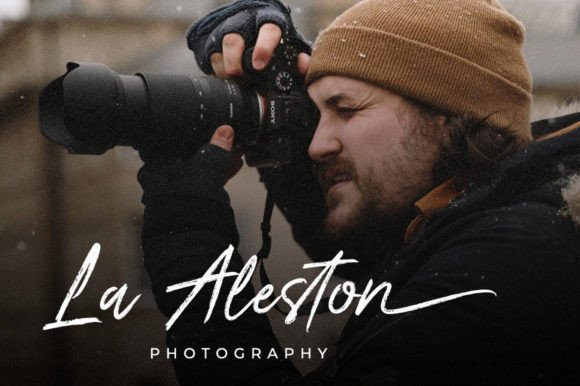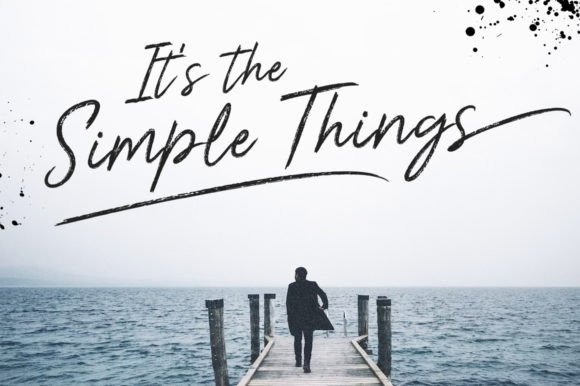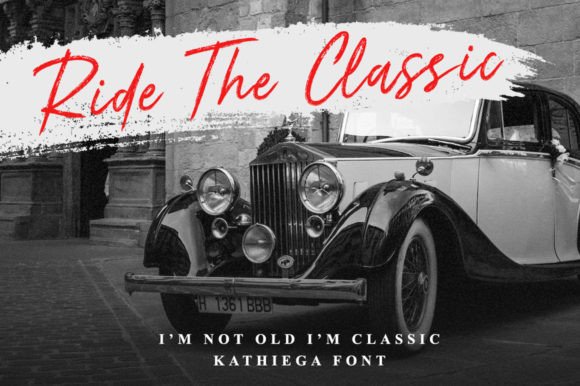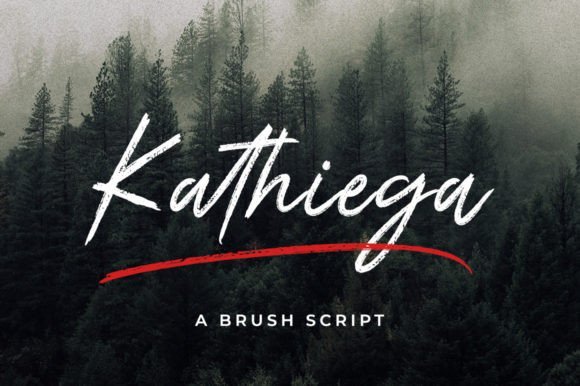
Introduction to Kathiega Font
Kathiega is a handwritten brush script written in a relaxed and natural way.
The letters were created with a brush on paper and then scanned and carefully drawn into a vector format This typeface is ideal for use in any professional project, such as blog titles, posters, wedding elements, t-shirts, clothing, book covers, business cards, greeting cards, branding, merchandise, etc.
Kathiega Font offers exceptional quality and versatility, making it a valuable addition to your design toolkit. Whether you’re creating for personal projects or commercial use, Kathiega Font delivers professional results.